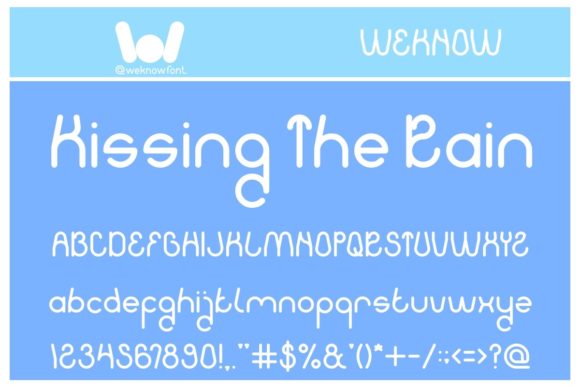
Introducing Kissing the Rain Font, the epitome of elegance and charm in the world of display fonts. WeKnow, the creative minds behind this masterpiece, have meticulously crafted each letterform to evoke a sense of timeless beauty and sophistication.
Kissing the Rain is not just a font; it's an experience. Its modern calligraphic influences dance across the page, leaving a trail of visual delight. The result is a font that feels both contemporary and fresh, perfectly capturing the essence of the modern age.
Whether you're a seasoned designer or just starting your creative journey, Kissing the Rain will elevate your projects to new heights. Its versatility knows no bounds. Use it to create stunning logos, eye-catching headlines, or elegant invitations that leave a lasting impression.
Imagine your website adorned with the graceful curves and delicate flourishes of Kissing the Rain. Watch as your visitors are captivated by the sheer beauty of your words, their eyes drawn to the intricate details that make this font truly special.
Kissing the Rain is more than just a font; it's an investment in your brand. It's a statement of your commitment to quality and excellence. Embrace the power of Kissing the Rain and transform your creative vision into reality.
Every stroke, every curve, every detail of Kissing the Rain has been carefully crafted to evoke emotions and create a lasting impact. Let this captivating font ignite your imagination and unlock a world of creative possibilities.
Don't settle for ordinary fonts. Choose Kissing the Rain and experience the magic of truly inspired typography.